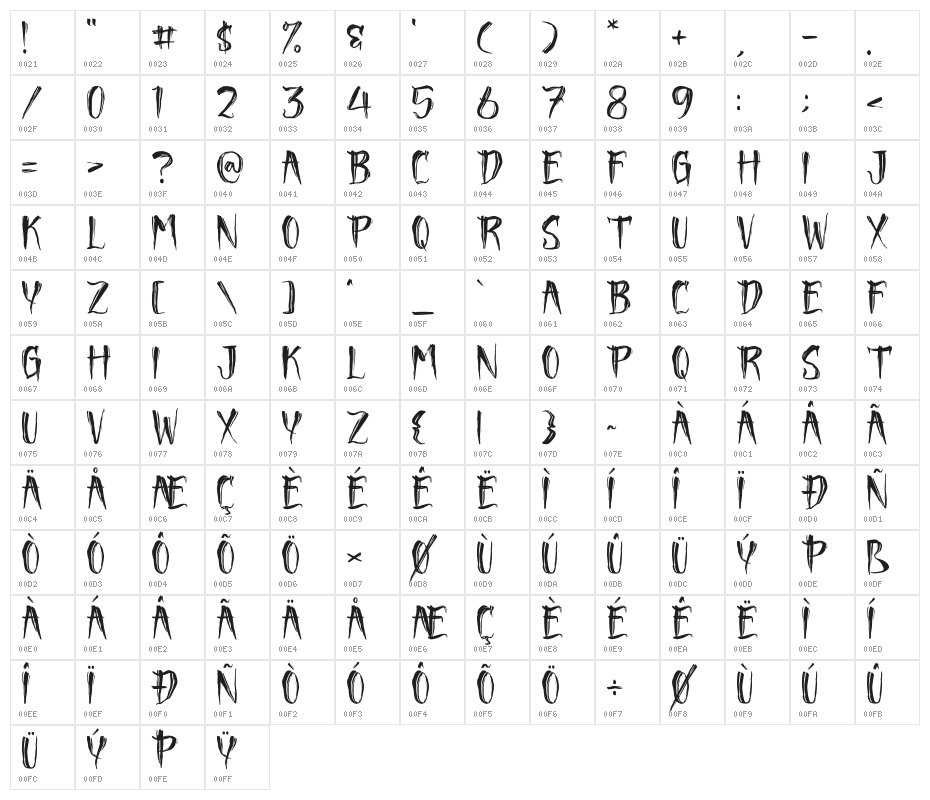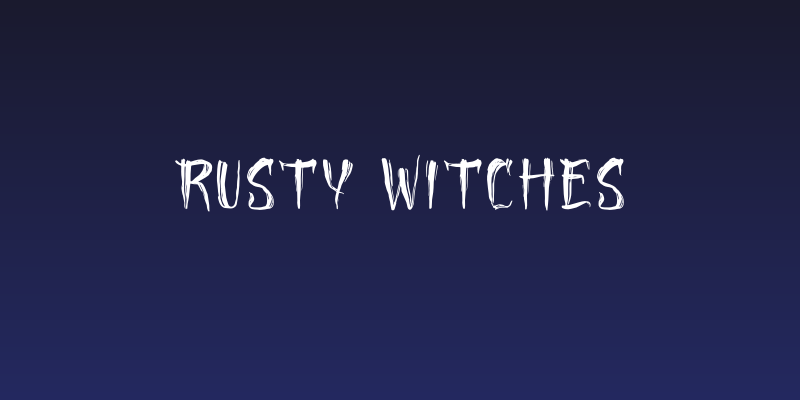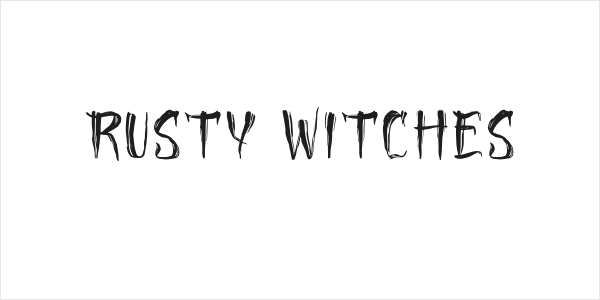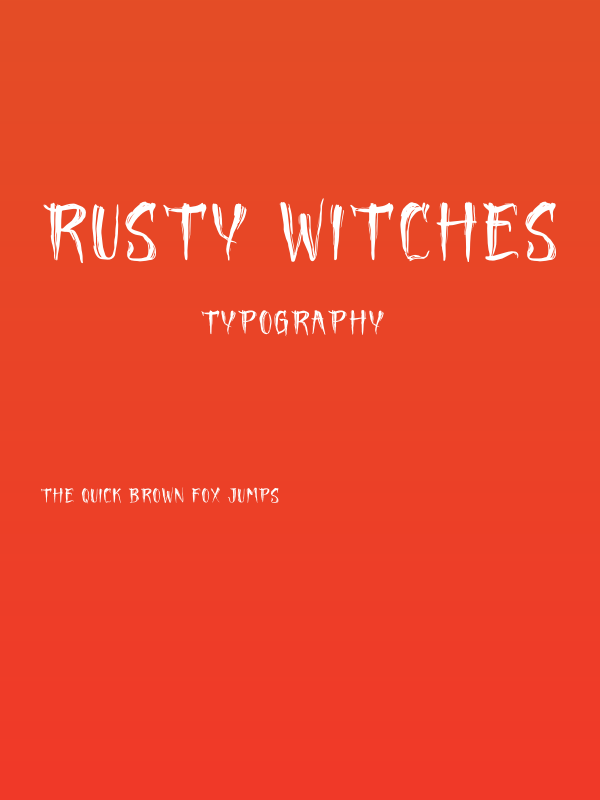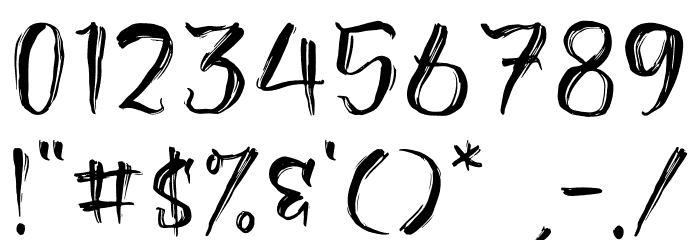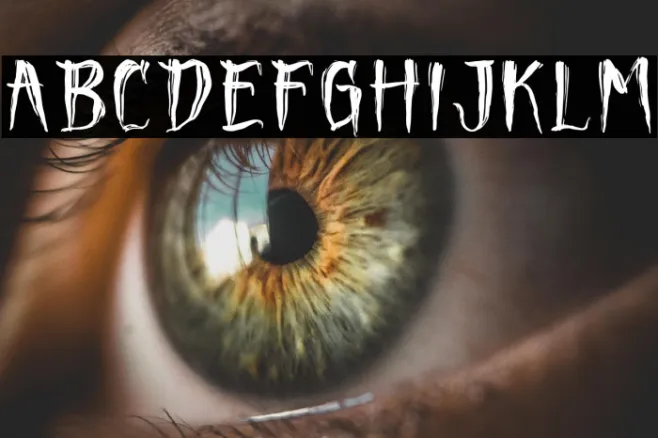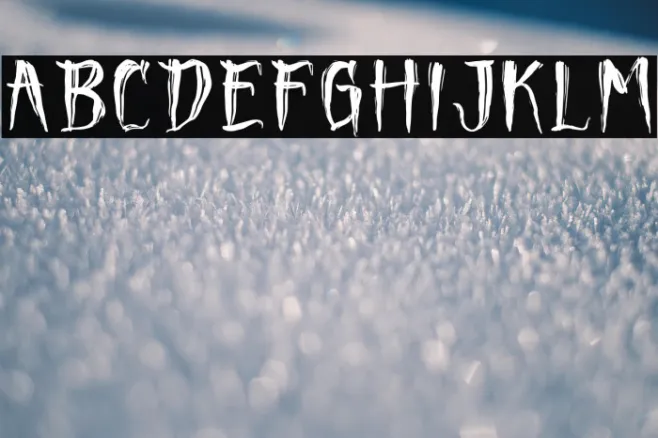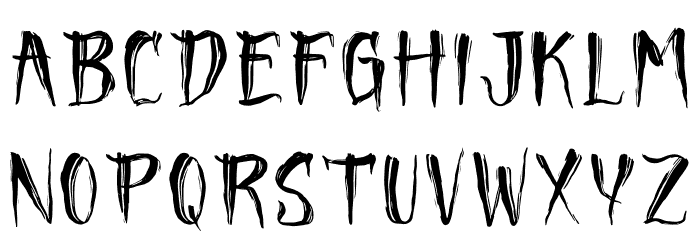
Rusty Witches Font
Rusty Witches Description
This font exudes a dark and eerie aesthetic, characterized by its jagged and uneven strokes that mimic the appearance of scratchy handwriting. The letters are irregular and have a distressed look, giving them a haunted, witchy vibe. The uppercase and lowercase letters maintain a consistent style, with sharp edges and varying thickness that add to the font's unsettling charm. The numbers and special characters follow the same theme, ensuring a cohesive look across all elements. This font is perfect for projects that require a spooky or mysterious touch, such as Halloween-themed designs or horror movie posters.
| Proposed Projects | Ideal for Halloween designs, horror movie posters, spooky invitations, and themed merchandise. |